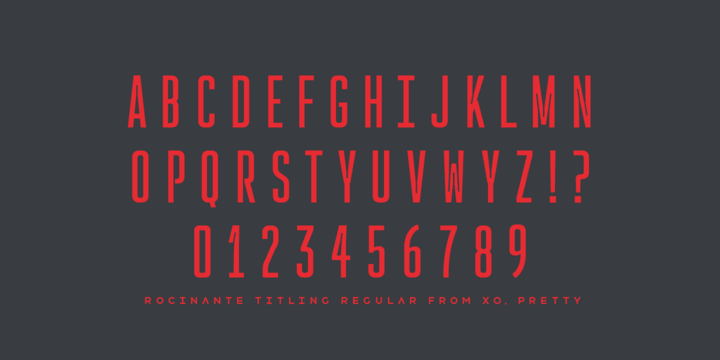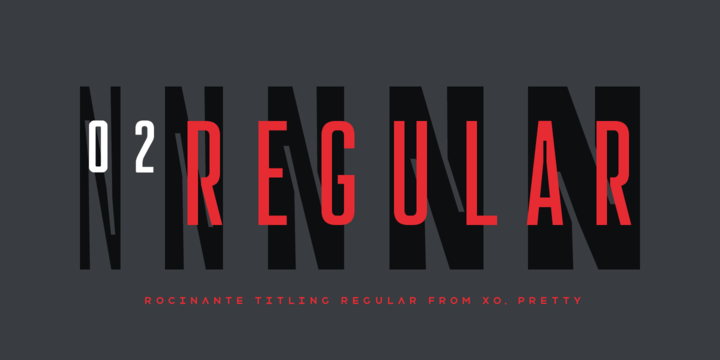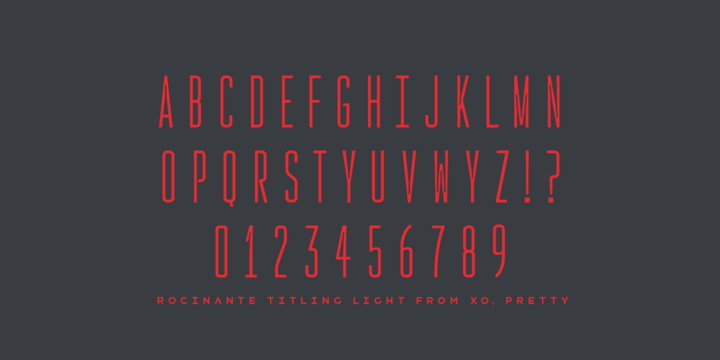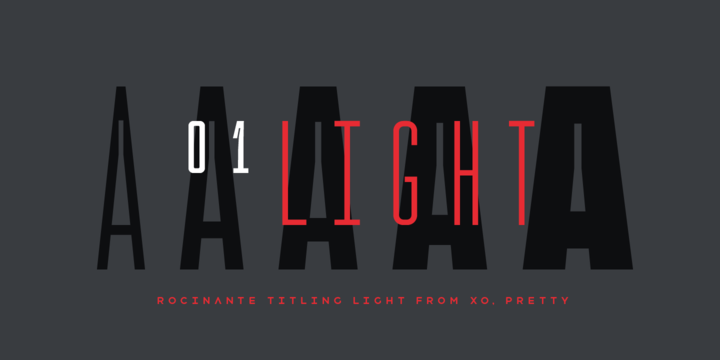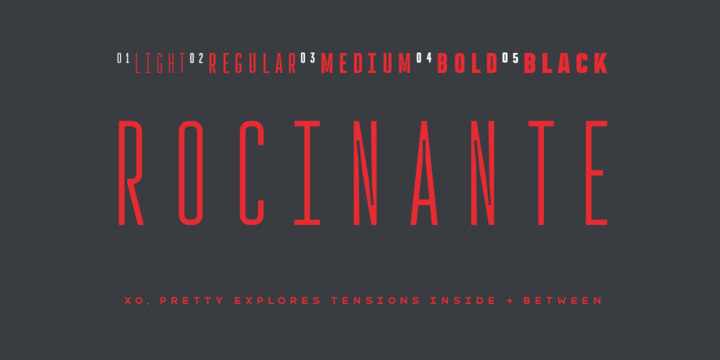
Rocinante Titling is a study in interior and exterior tension, with tightly-packed interiors and unexpected lightwells contrasting generous letterspacing.
Rocinante Titling is a contrasting partner to Havelock Titling, meant for combination, creating contrast and tension in your work with width and space.
Rocinante Titling is five weights, Light to Black, with weights and a character set that match Havelock Titling.